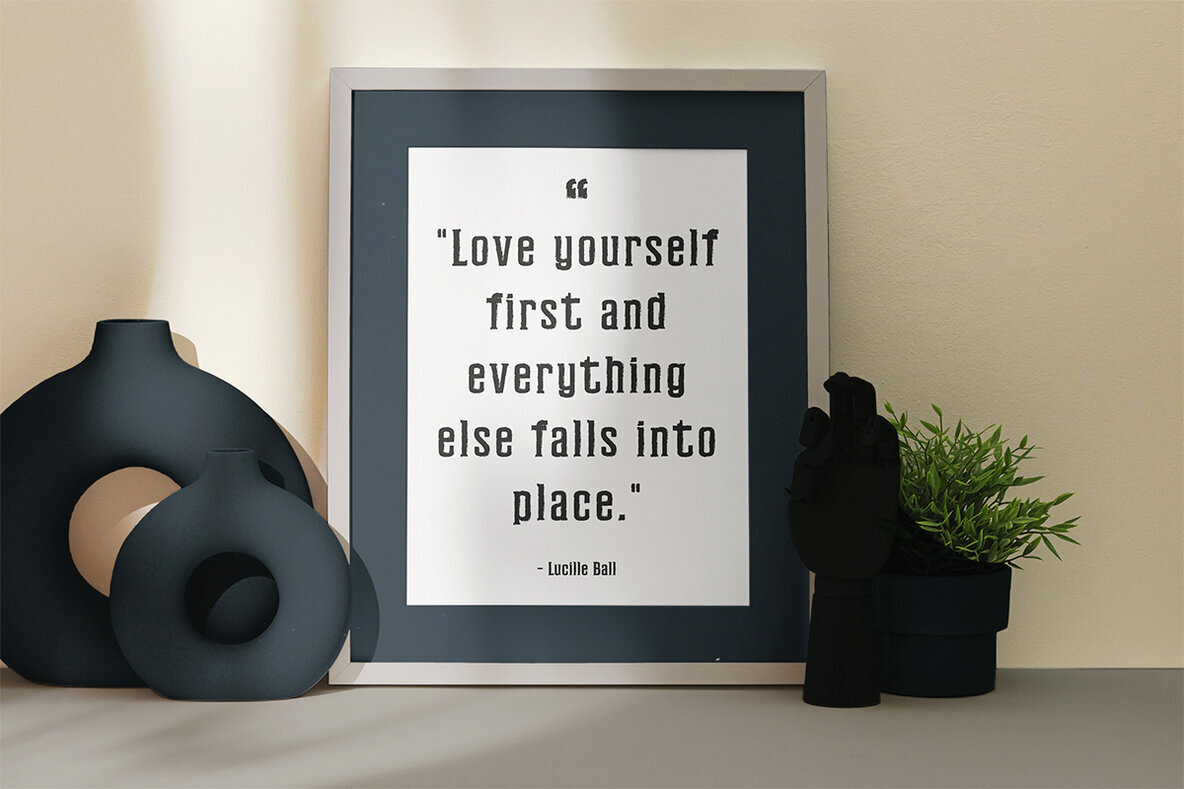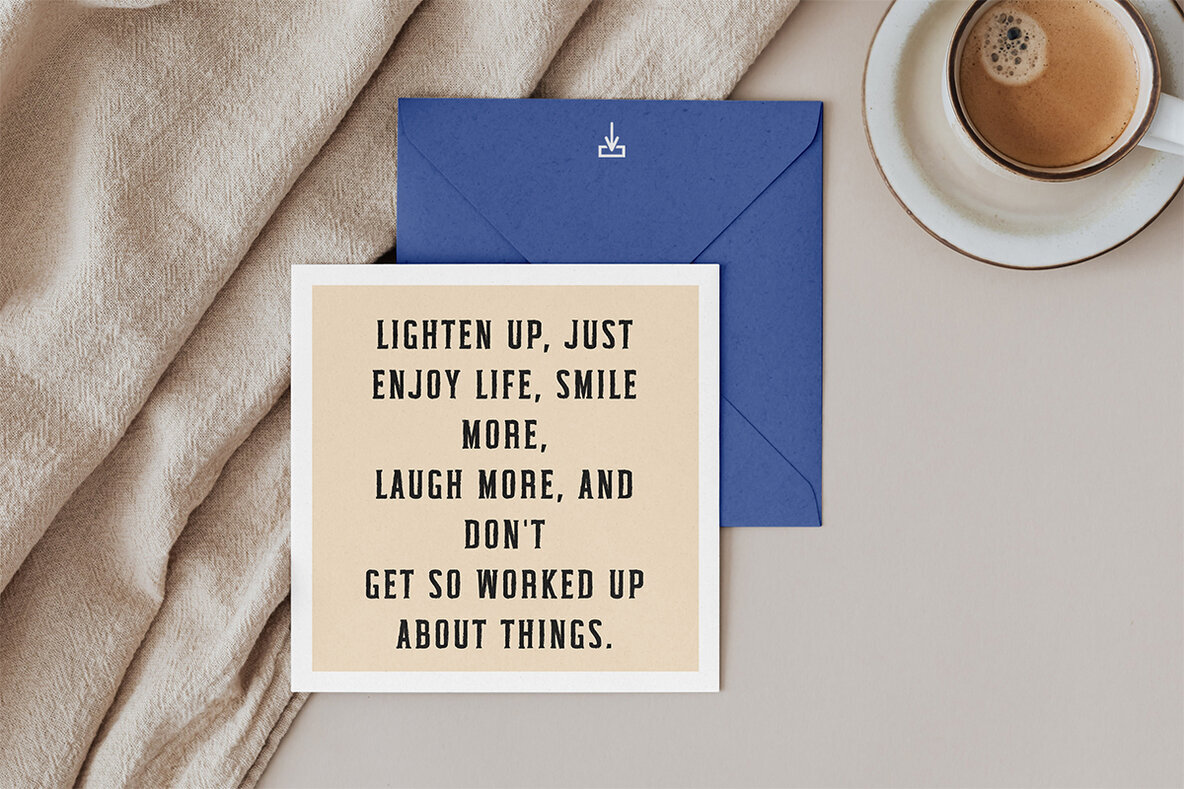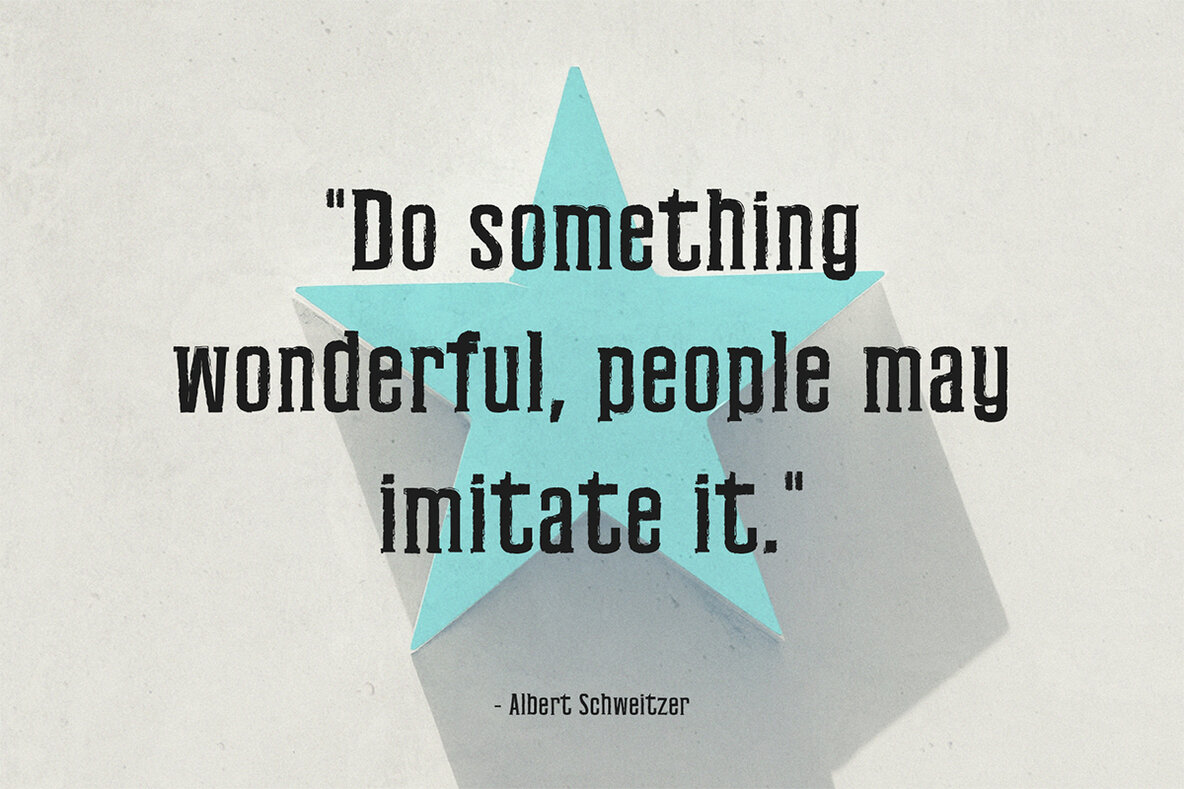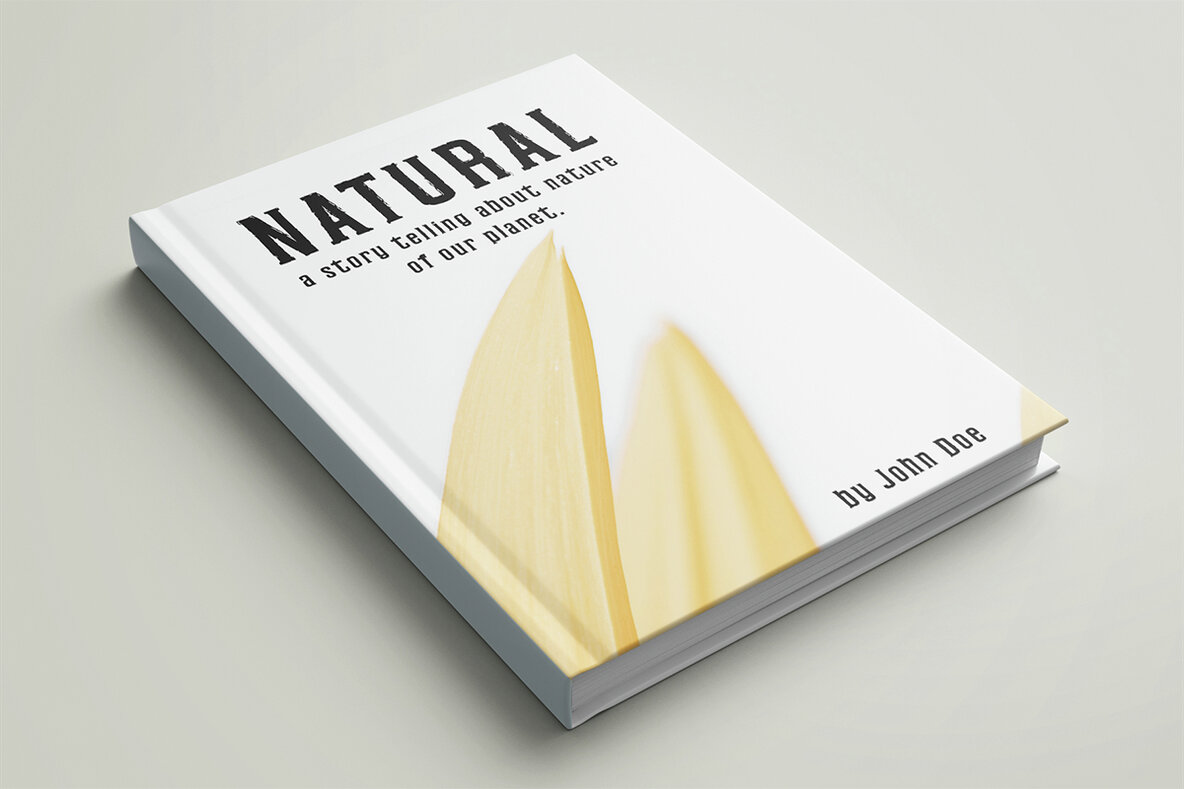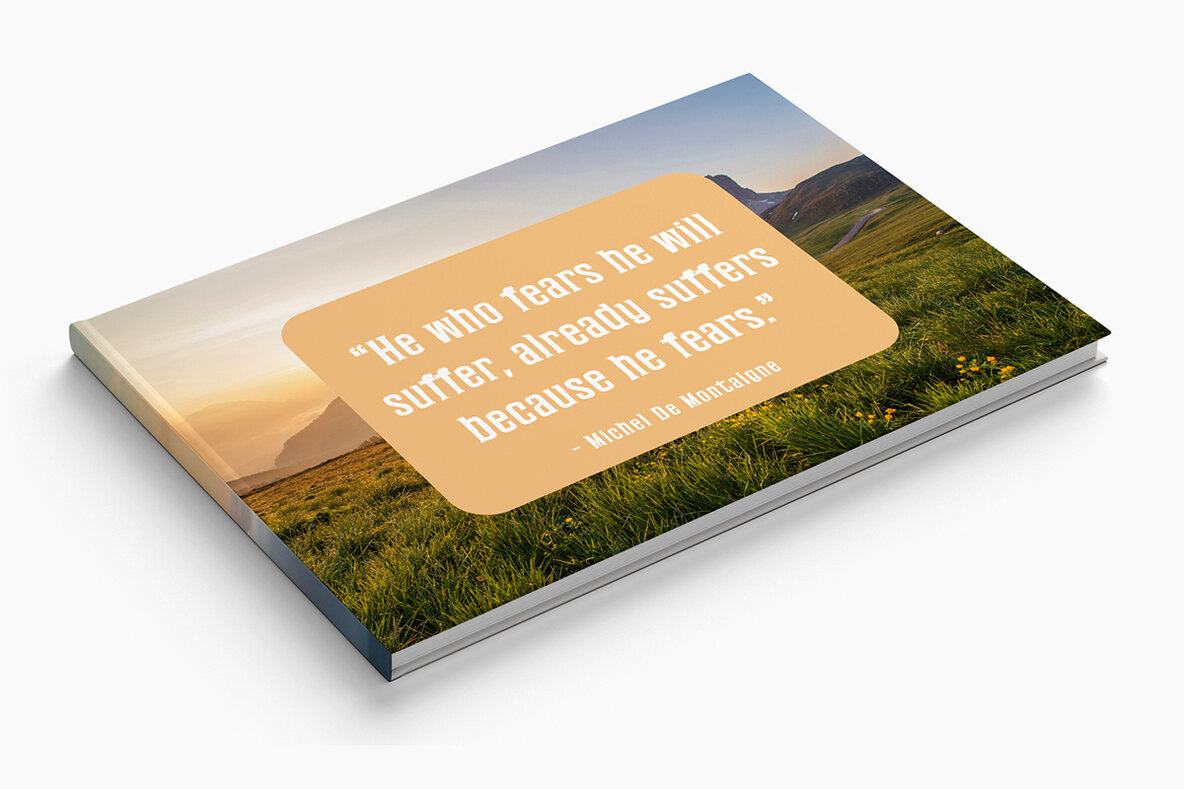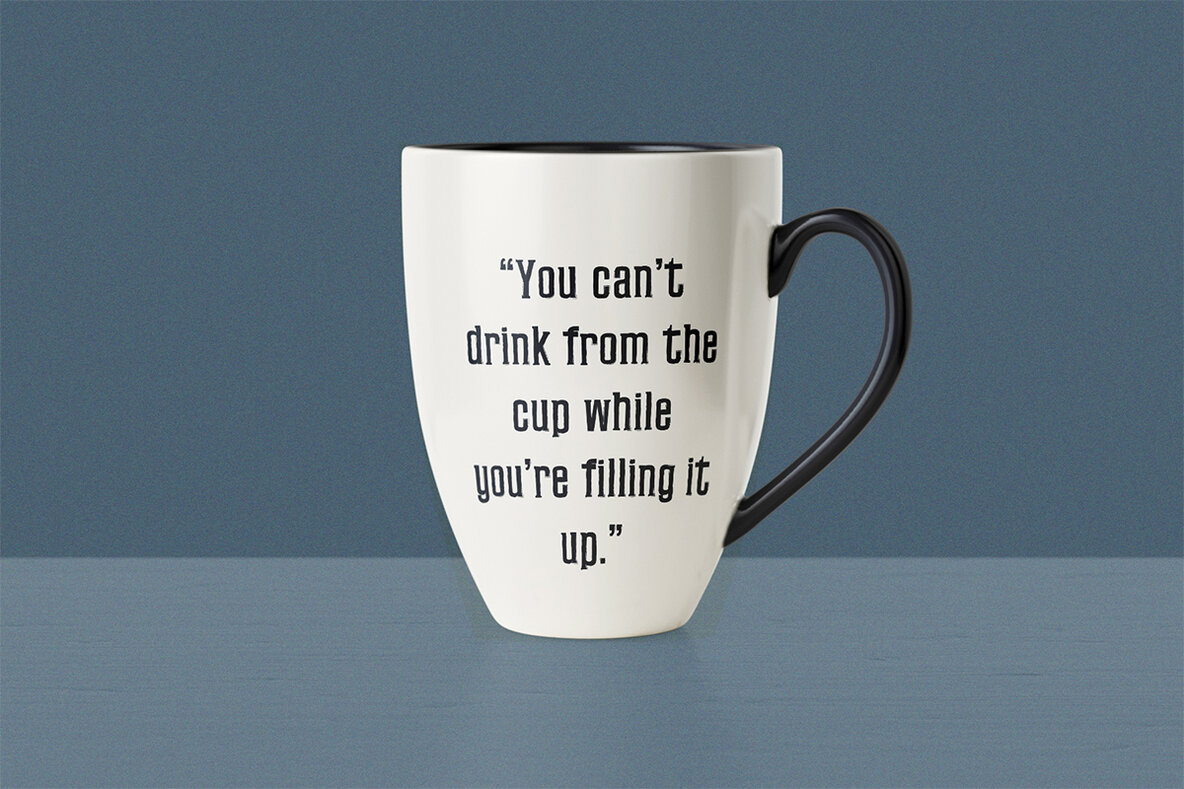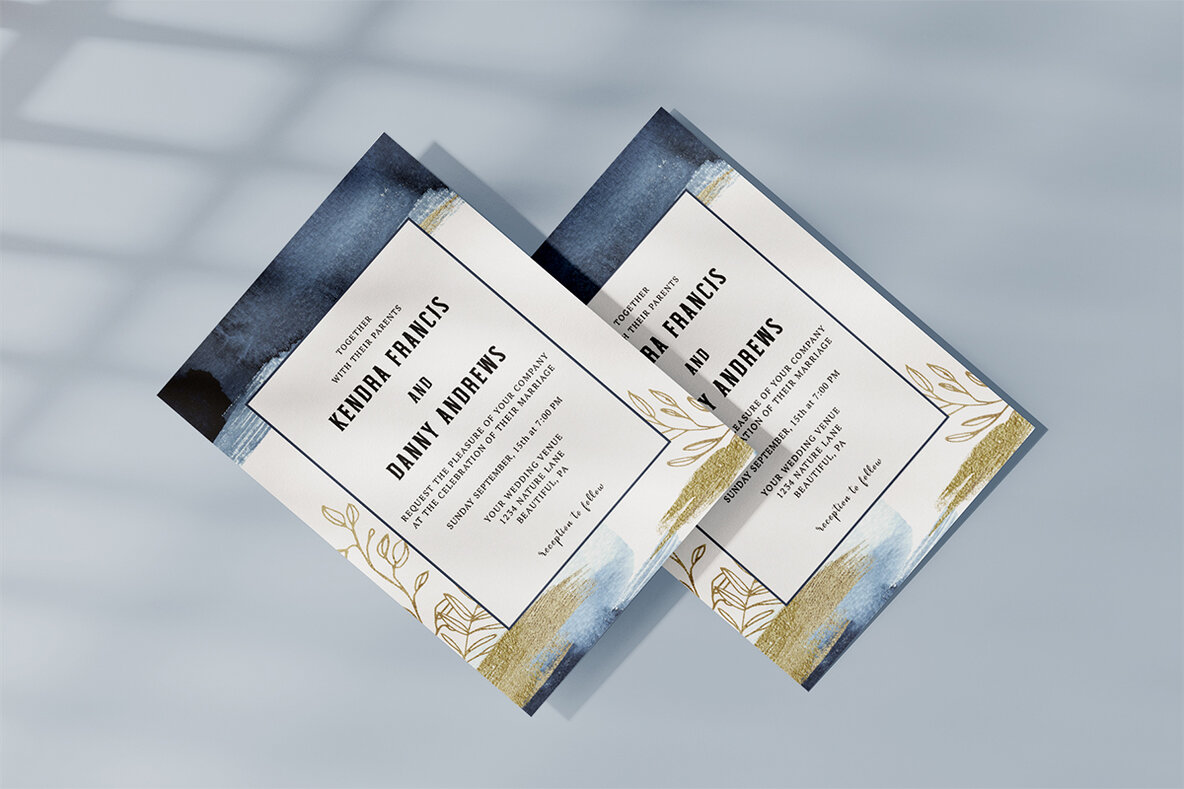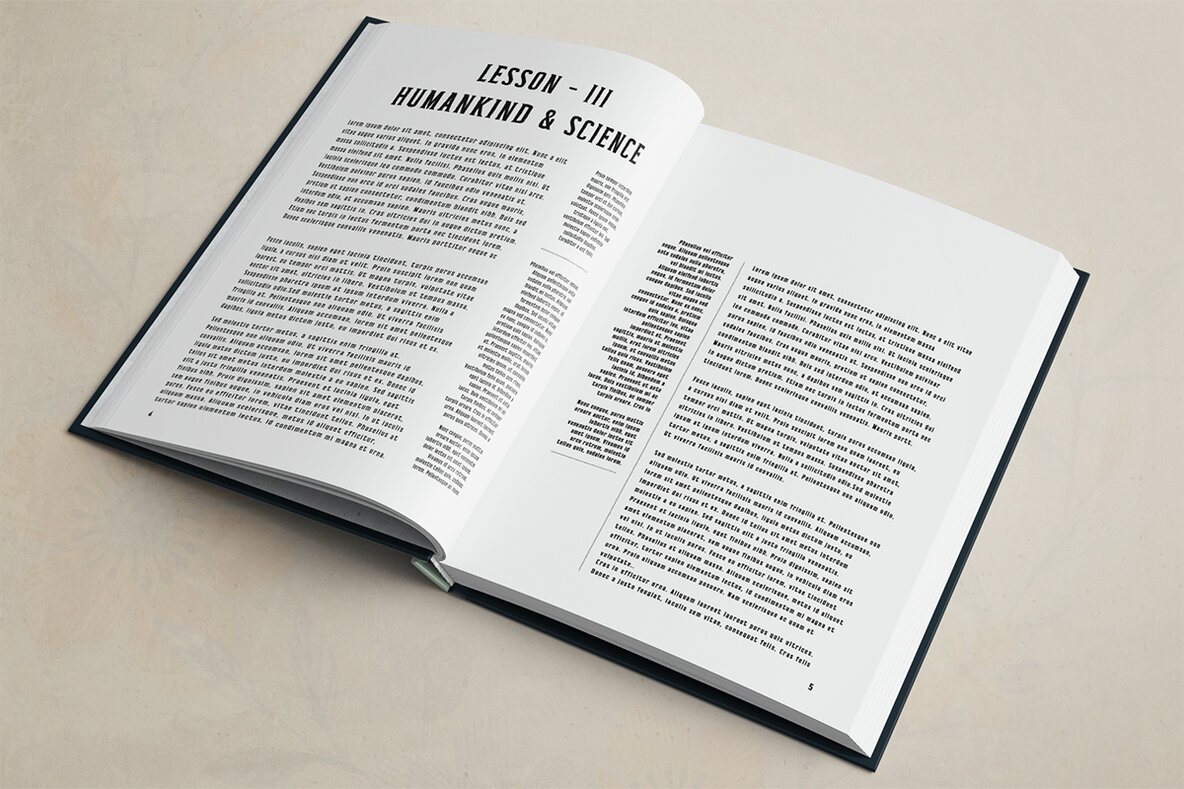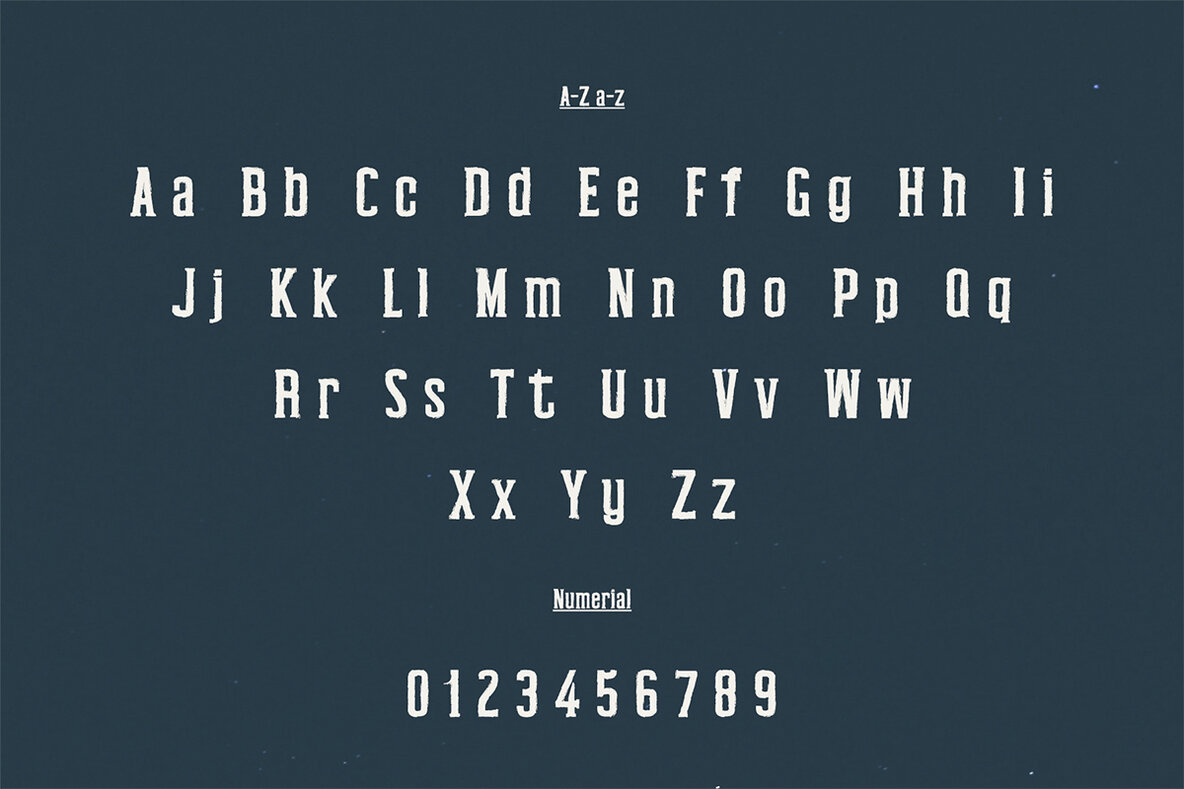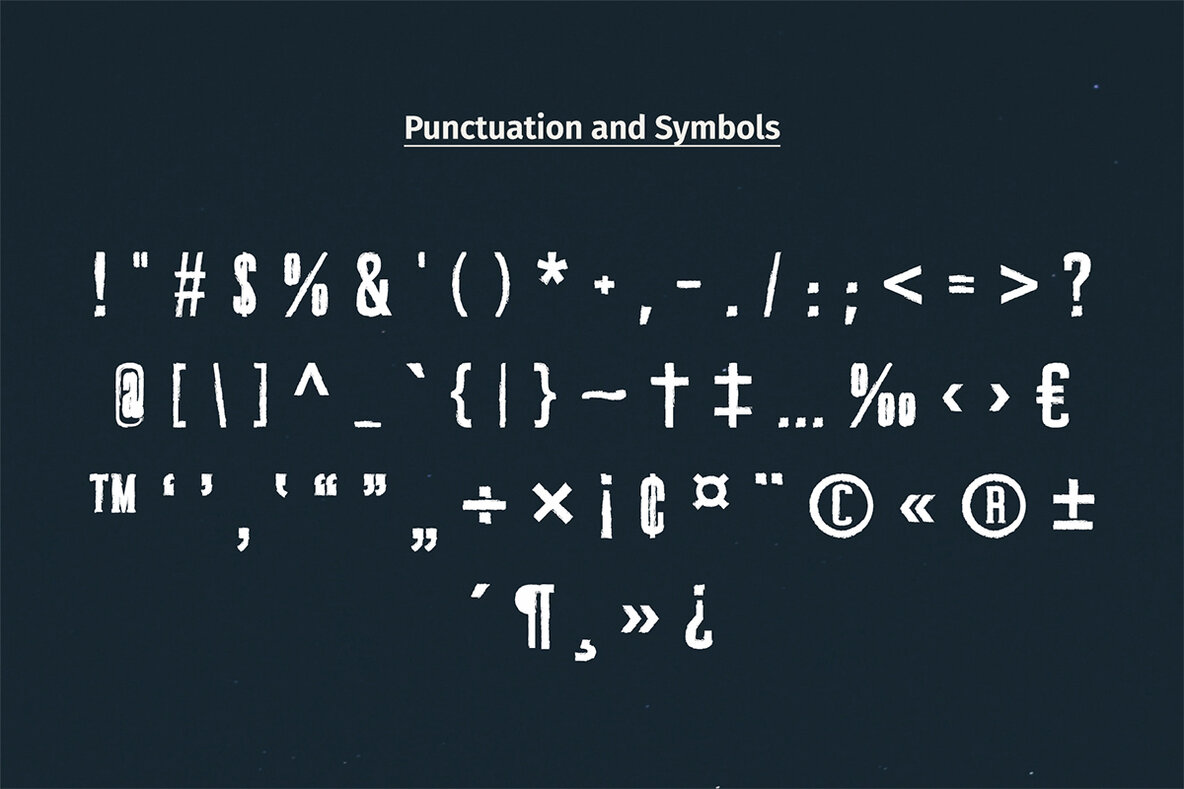
Jingyuan Font
Jingyuan Regular
Jingyuan Brush Font is a clean, modern typeface designed to bring elegance to your projects. Featuring both uppercase and lowercase letters, numbers, punctuation, and symbols, this versatile font suits a wide range of creative needs. Whether you're working on packaging, presentations, logos, headlines, posters, branding, quotes, titles, magazine headings, web layouts, advertising, invitations, or book designs, Jingyuan delivers a professional touch.
The font supports multilingual characters, allowing for global application in your projects. It includes the entire alphabet (both uppercase and lowercase), numbers 0-9, and a variety of punctuation marks and special characters. Jingyuan's refined aesthetic and comprehensive character set make it a valuable asset for designers looking to enhance their creative work with a modern and stylish font.